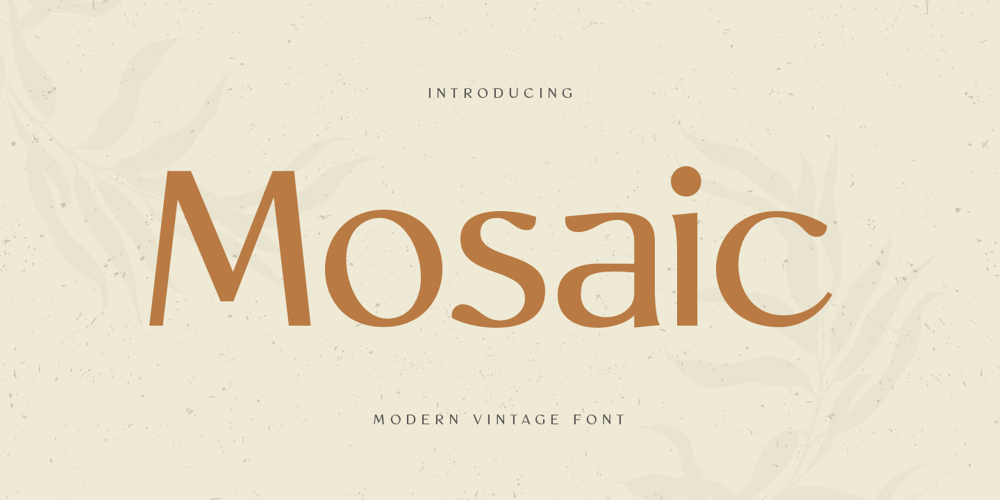
Mosaic SS Font Family was designed by Zamroni Hamzah and published by Sensatype Studio. Mosaic SS contains 1 styles and family package options. Mosaic is a Modern Vintage FontA Serif Vintage font that we created special for classy branding needs, with extra ligature in unique and vintage shape add value of your brand. It’s so nice to leverage designer or product owner that need solutions to make their design look more stylish and casual.Mosaic Modern Vintage font ready with: Lowercase and Uppercase characters Numbers and Punctuations Preview as a inspirations that you can do with Mosaic font Available for PC and Mac Wish you enjoy our font.